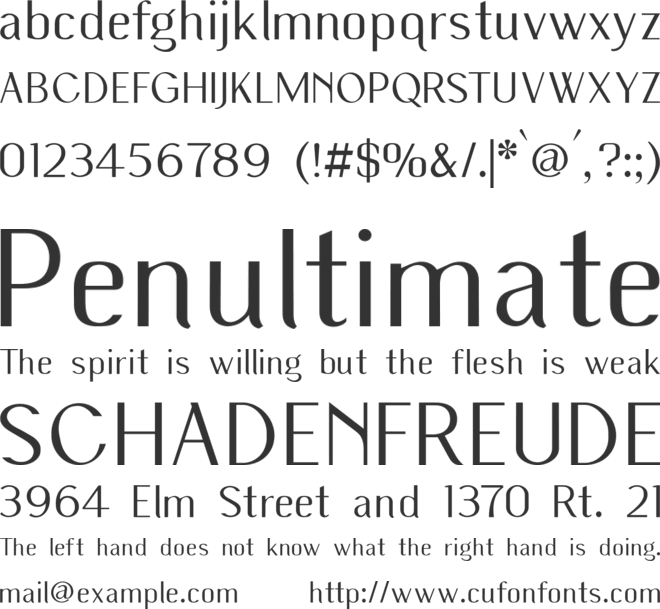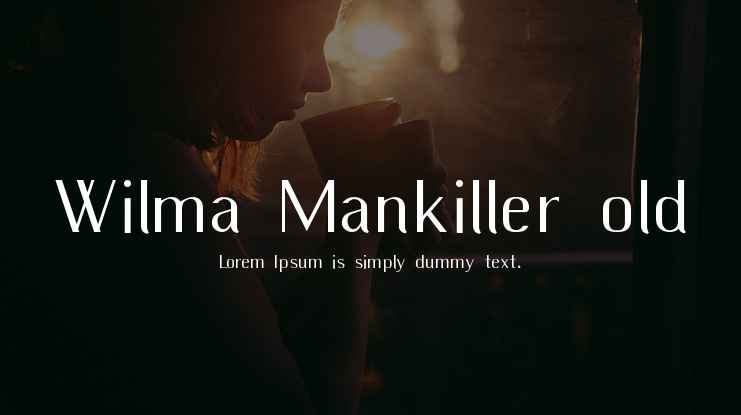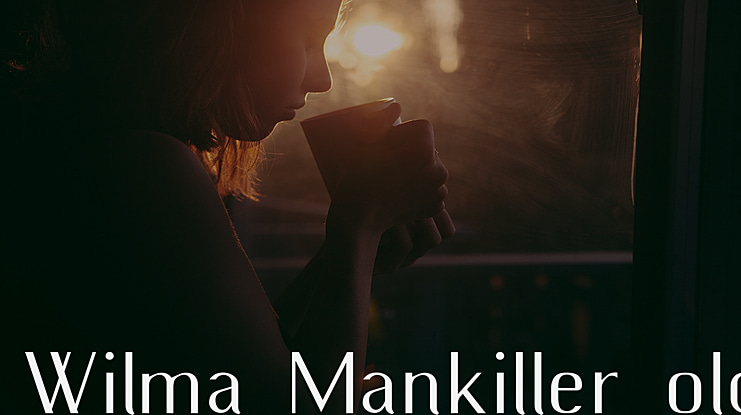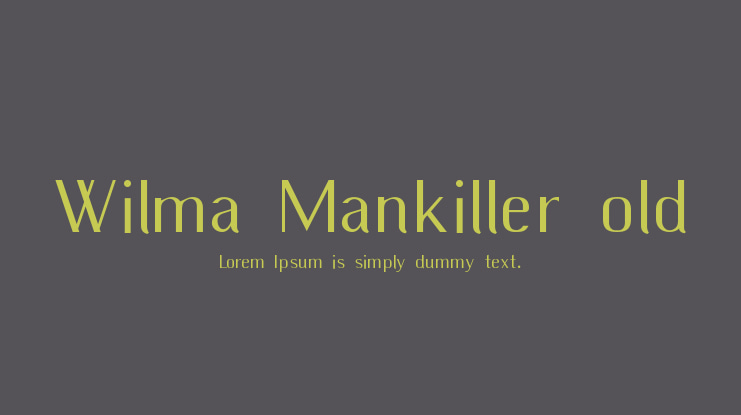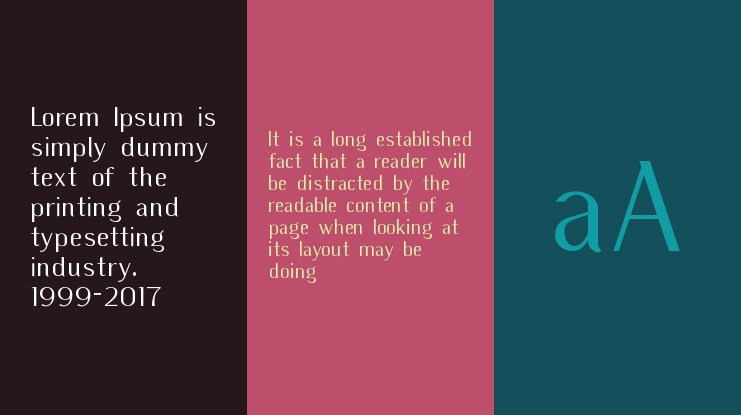
Wilma Mankiller old Font
Wilma Mankiller old is the Sequoyahâs Original handwriting style, with a bit of updated look. without it being italic like the original script.